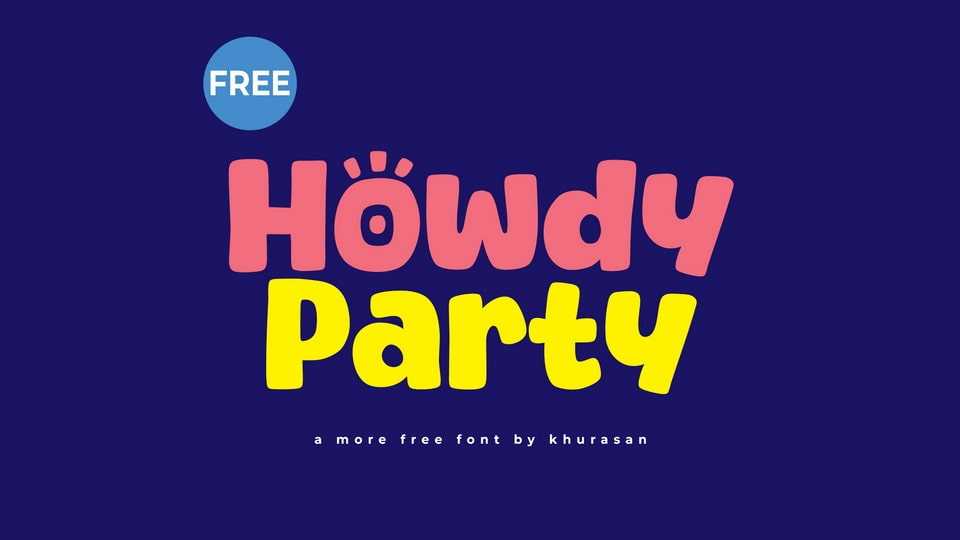
Download Howdy Party font, a bold and quirky hand-crafted cartoon typeface that bursts with playful energy. With its chunky, exaggerated letterforms and whimsical curves, Howdy Party font brings a sense of fun and creativity.